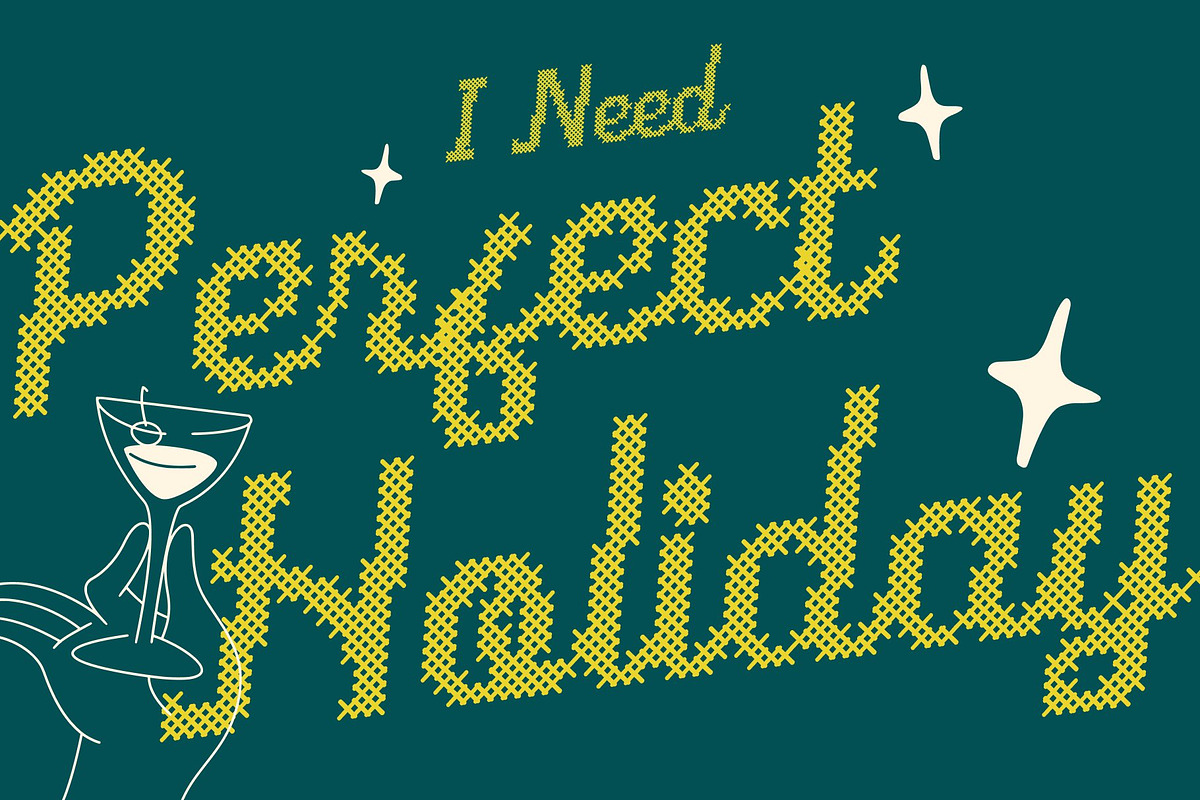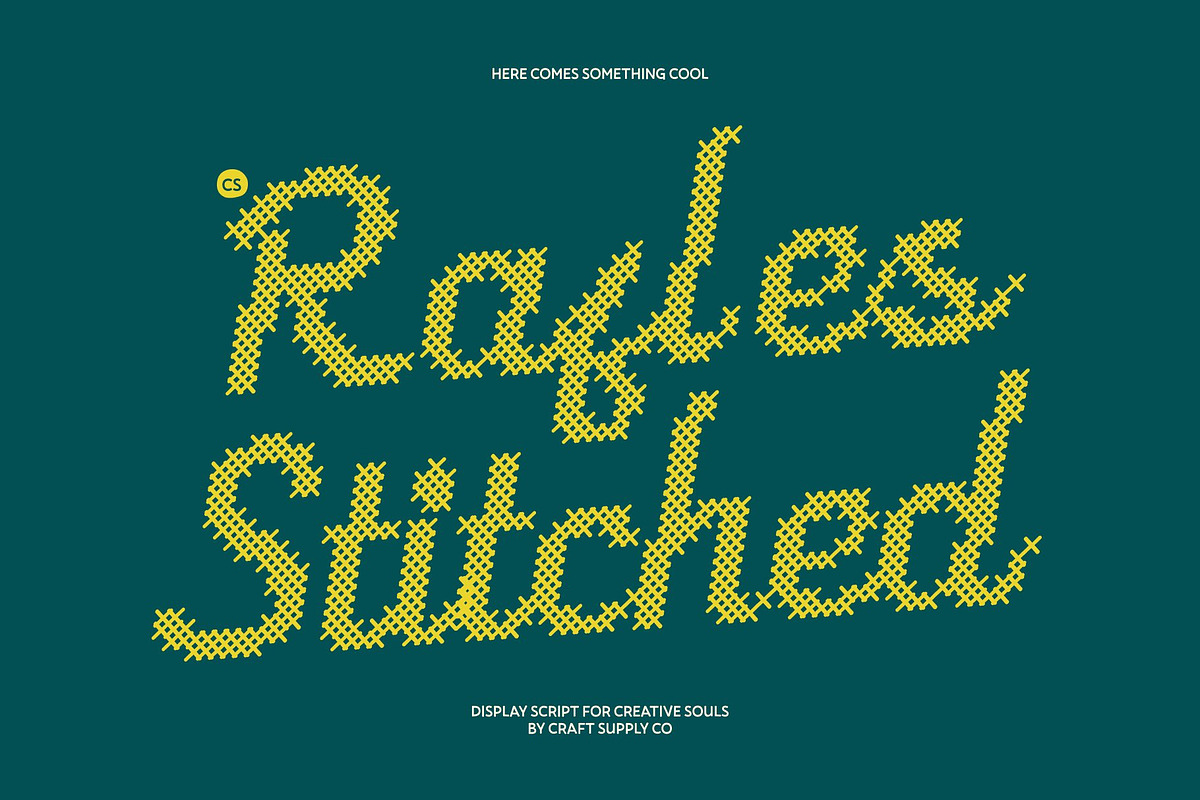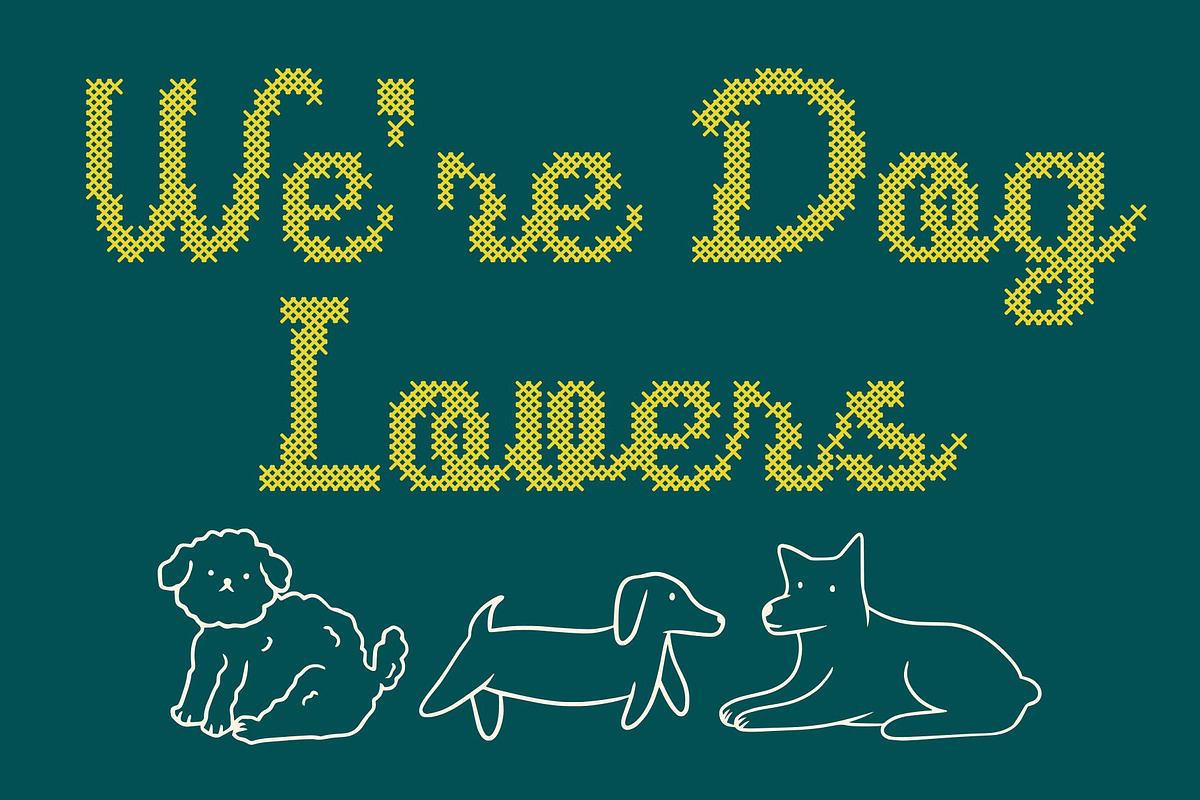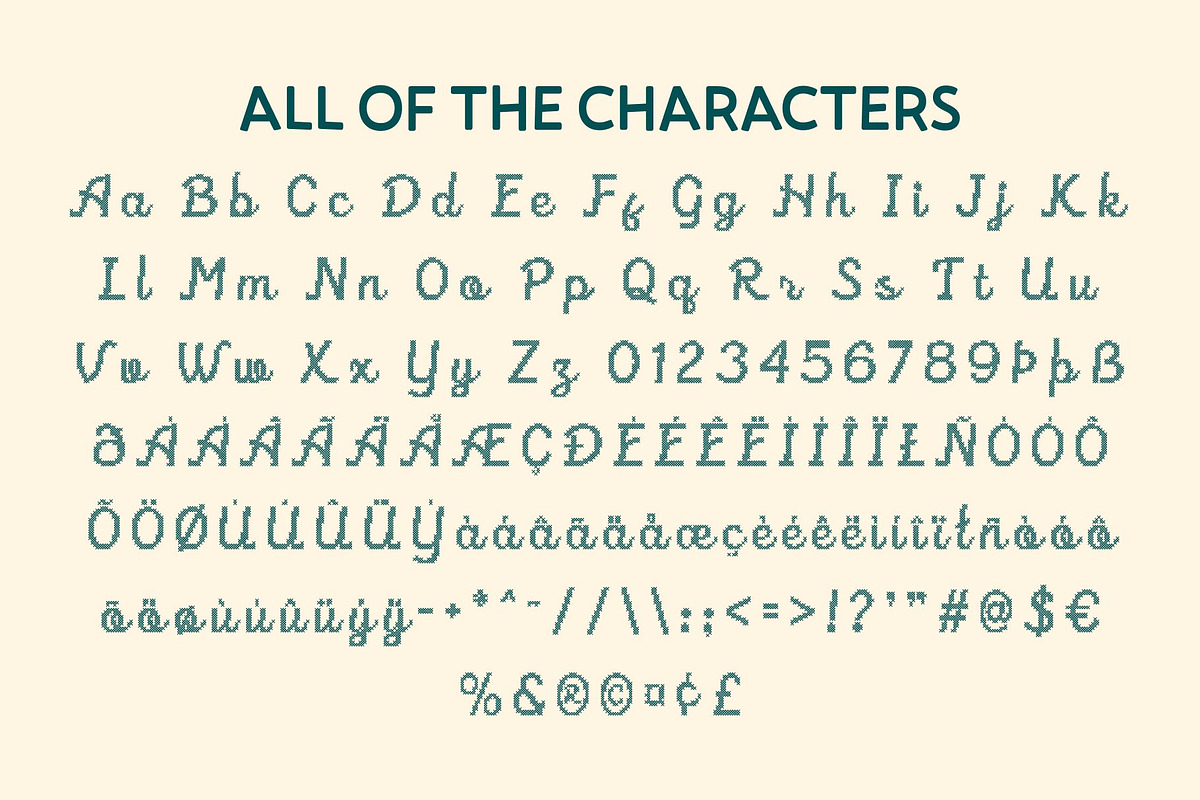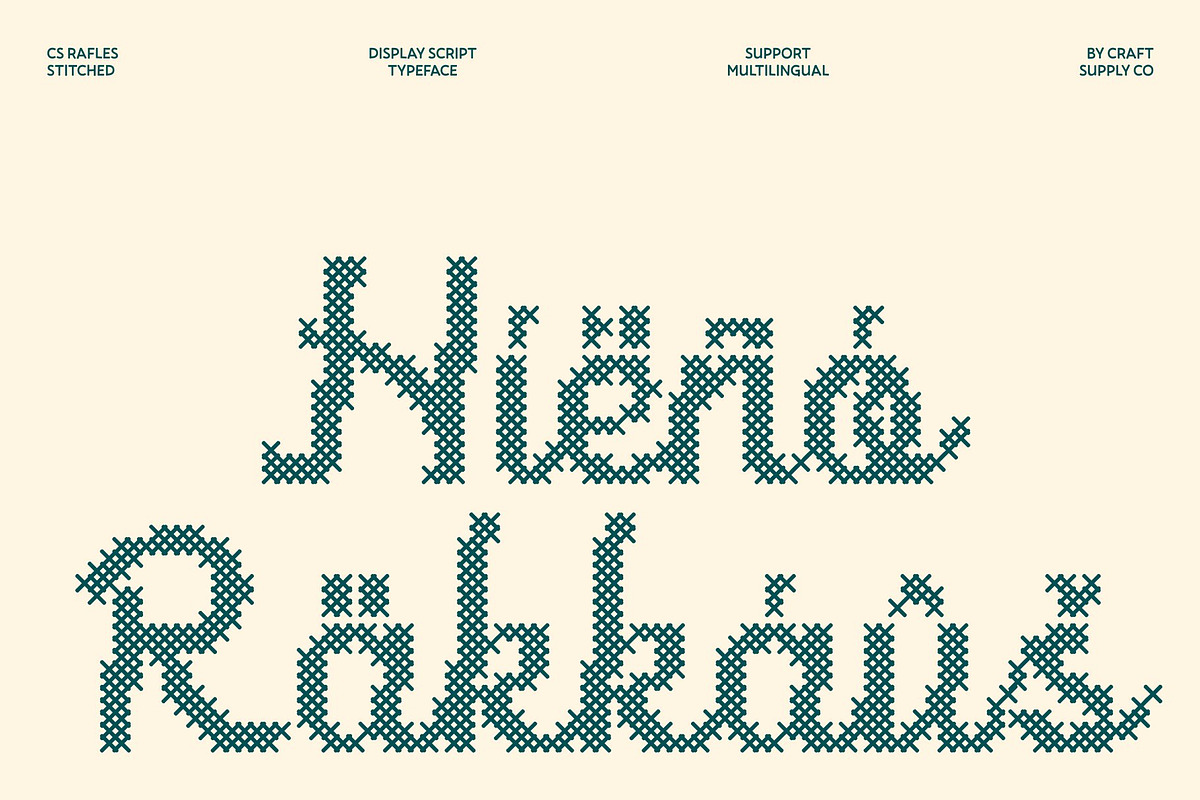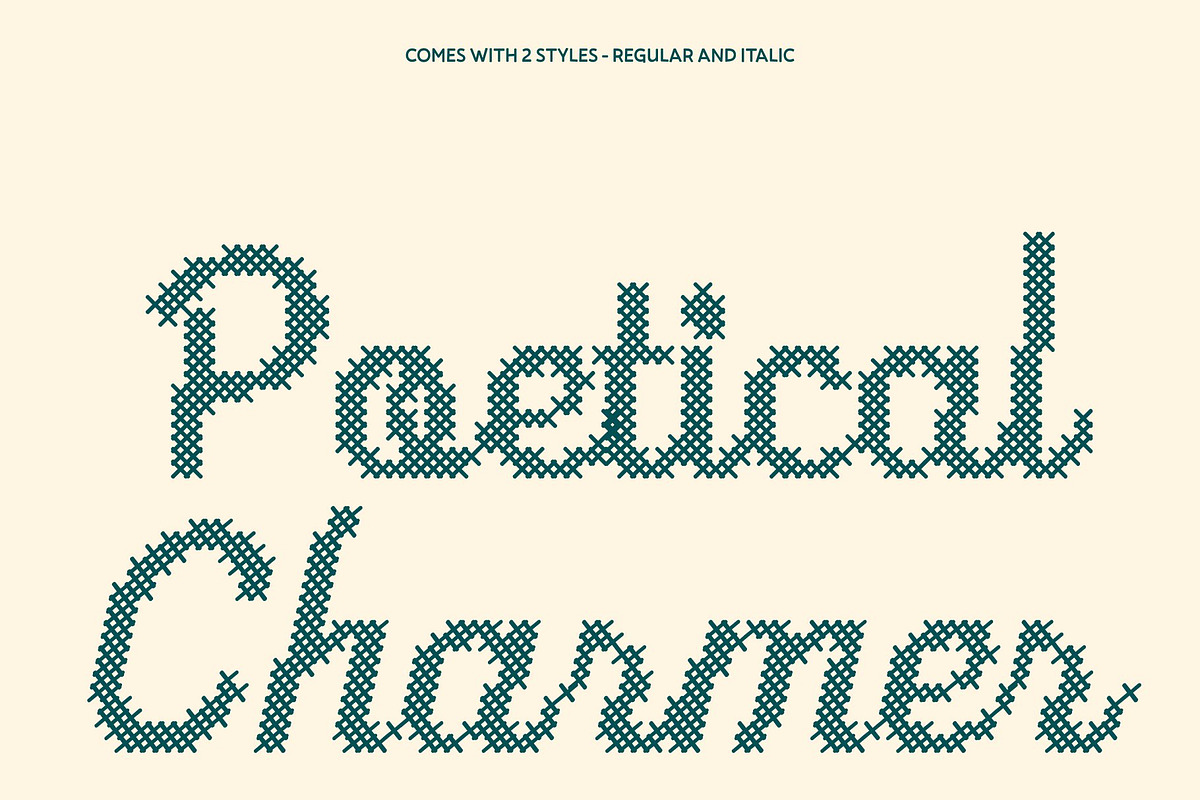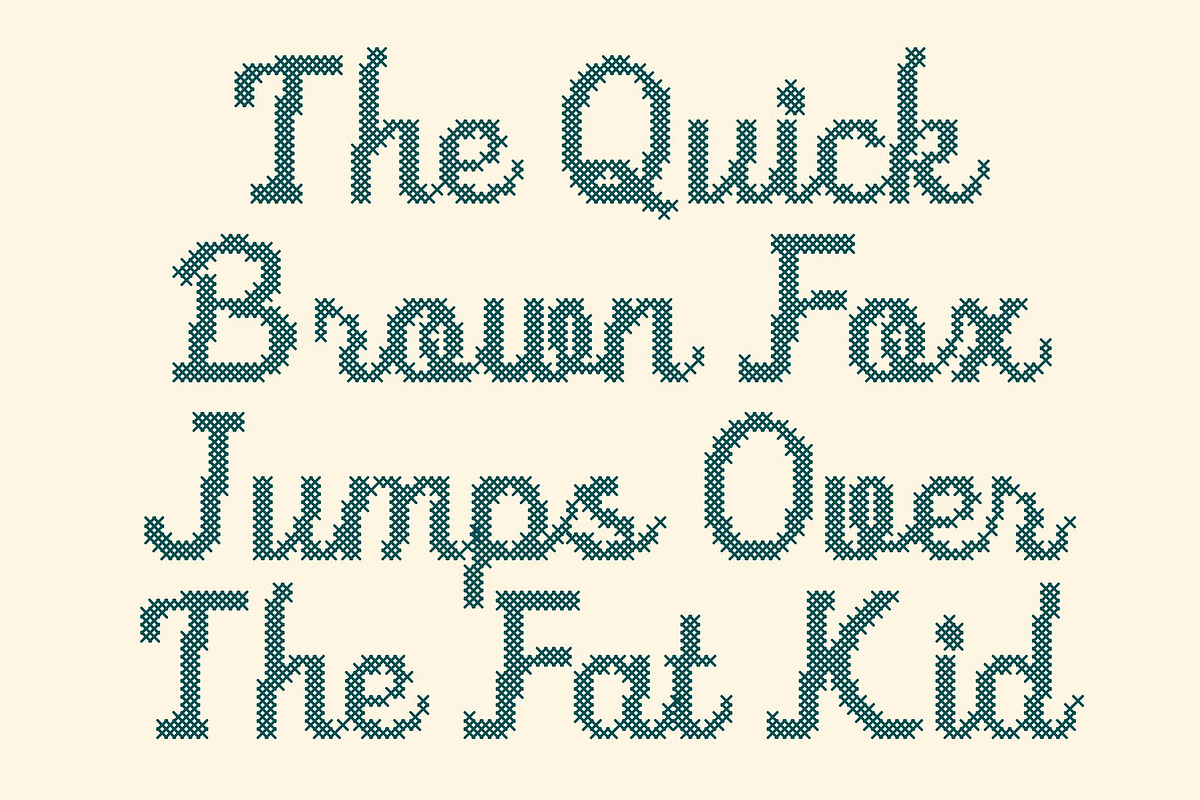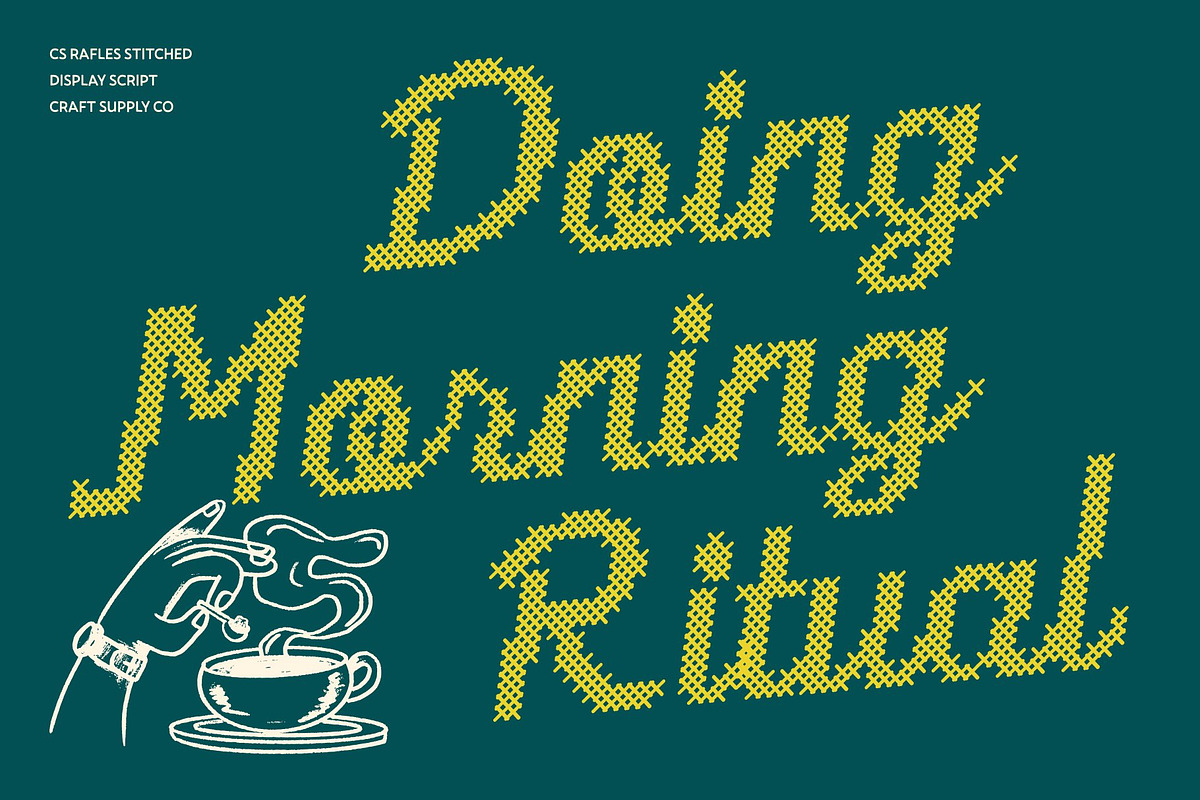
CS Rafles Stitched
Transport your audience to a golden era with CS Rafles Stitched, a modern script font designed to evoke elegance, charm, and the raw beauty of nature. This smooth, flowing cursive style features a distinctive stitched pattern that mimics real thread sewn or embroidered on fabric. Each character incorporates a cross-shaped pattern, delivering a classic, nostalgic, relaxed, and warm impression. Through its embossed and structured texture, the typeface achieves a unique visual depth that feels both personal and deeply tactile on any surface.
Drawing inspiration from organic surroundings, the font combines fluid movement with delightful irregularity. Its fine-lined strokes and expressive letterforms bring a romantic, whimsical character to creative projects, offering a versatile tool that feels entirely alive.
This warm and inviting design is exceptionally well-suited for craft-themed DIY designs, bespoke wedding invitations, custom clothing, fashion logos, and school projects. It effortlessly balances a vintage aesthetic with lighthearted charm, making it an ideal choice for artisanal branding and bohemian editorial layouts that demand a soulful, human touch.
Bring warmth and distinctive texture to your next creative venture by letting these undulating glyphs guide your visual narrative. Whether you are building an independent apparel brand or designing memorable event graphics, CS Rafles Stitched delivers an effortless blend of nostalgic storytelling and contemporary appeal.
CS Rafles Stitched Regular
CS Rafles Stitched Italic